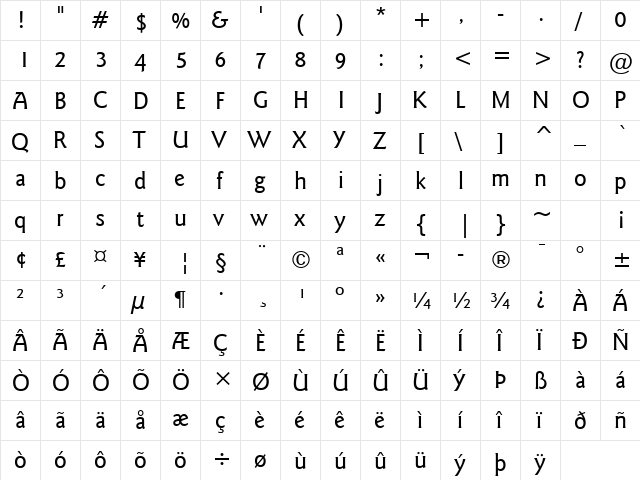
GoudySans Md BT Medium
Design Context for GoudySans Md BT Typeface
GoudySans Md BT takes a measured approach to typography — its balanced proportions and neutral character make it a reliable workhorse for both digital and print work.